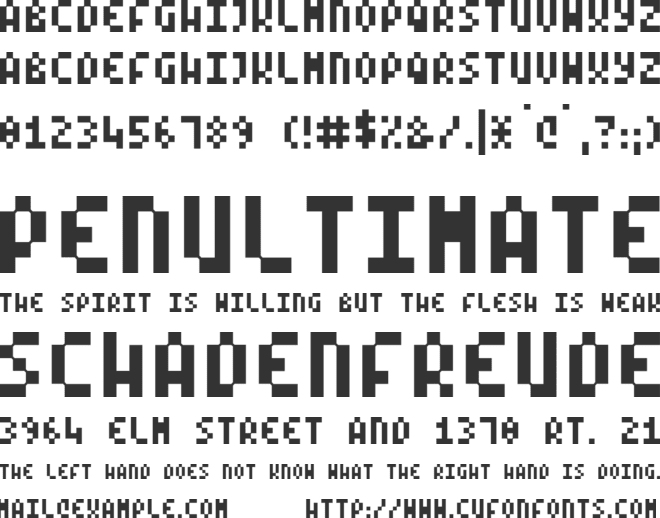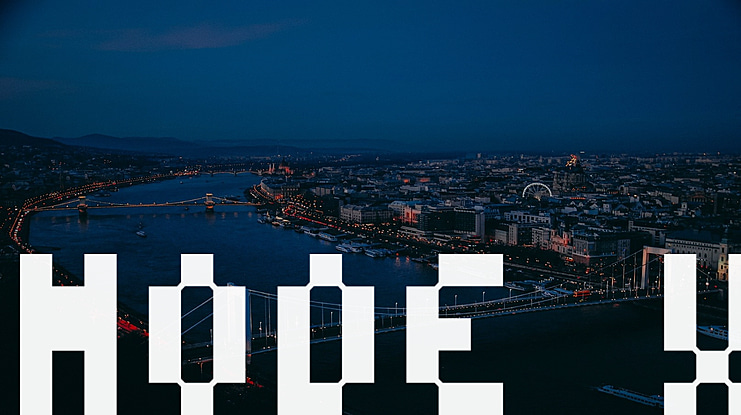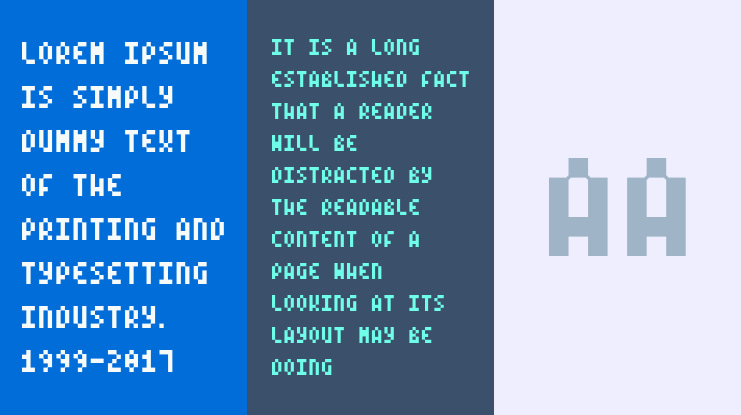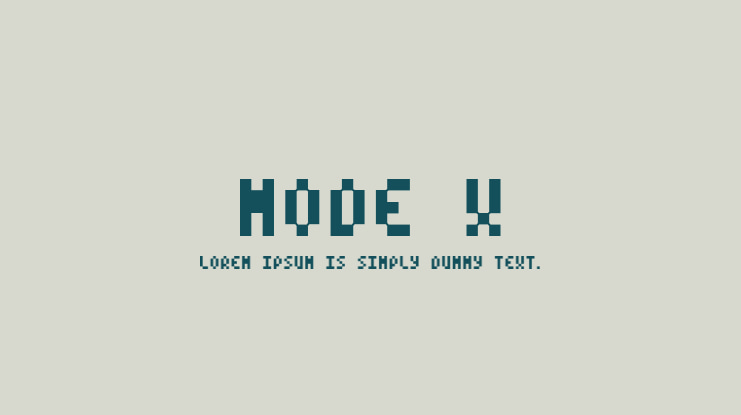
Mode X Font
Neale Davidson
Based on lettering from classic "Mode X" games of the early 1990s. Includes full alphabet, punctuation, accent characters, and Euro.